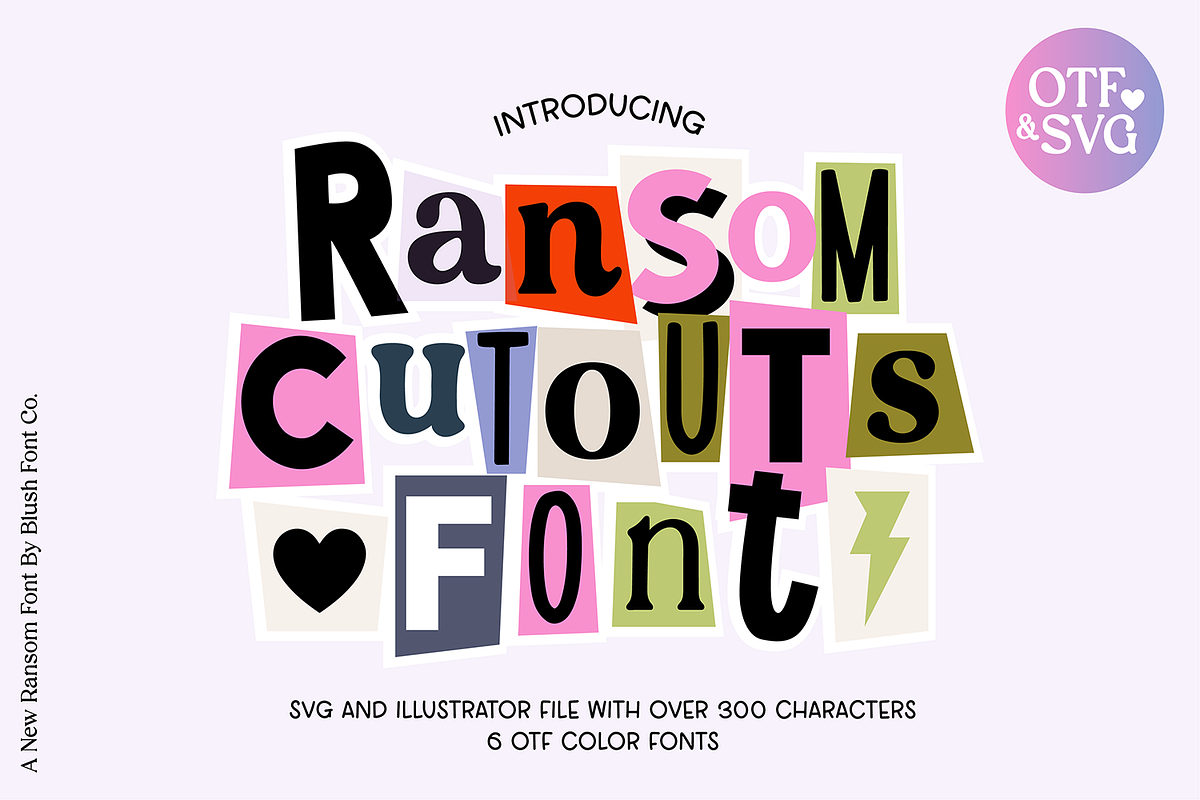
RANSOM CUTOUTS Font and SVG Letters Free Download
Bring edgy, chaotic style to your next project with the RANSOM CUTOUTS Font and SVG Letters Free Download — a bold typeface inspired by vintage ransom notes and DIY collage art. Featuring mismatched letters and a gritty, cut-paper aesthetic, this font is perfect for punk posters, thriller titles, zines, true crime content, and rebellious branding.
The bundle includes both standard font files and detailed SVG letters, giving you maximum flexibility for high-impact visual storytelling. Each character looks like it’s been snipped from a magazine, adding a raw and unpredictable vibe to your designs.